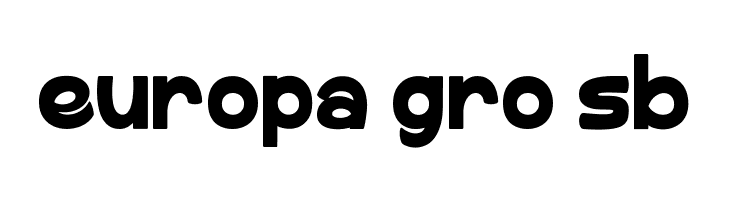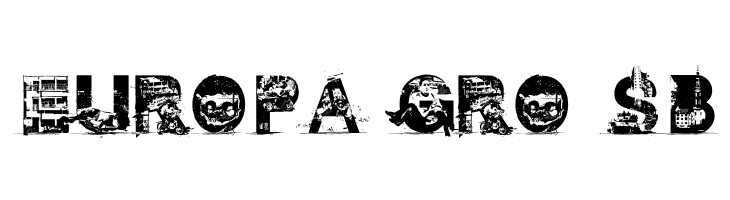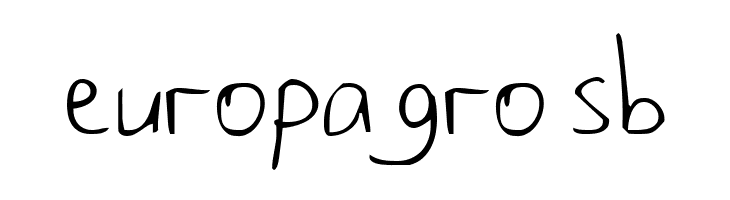
A bold, playful font with rounded edges and a strong, friendly presence.
A bold, distressed font with a grunge aesthetic and intricate patterns.
Bold, decorative display font with sports-themed elements.
Bold, geometric sans-serif font with a sporty, dynamic look.
Bold, collegiate serif font with strong, blocky forms.
Urban-themed icon font with bold, geometric silhouettes.
A rugged, distressed font with a gritty, urban feel.
A bold, graffiti-inspired font with angular, geometric shapes and a rebellious edge.
A playful, casual handwritten font with dynamic strokes and a friendly appearance.